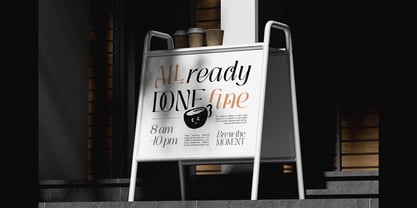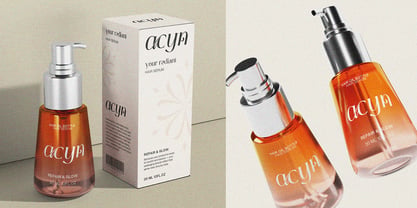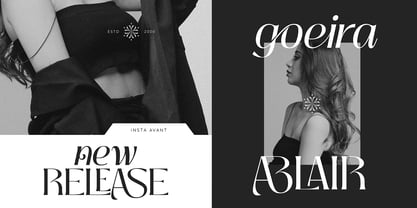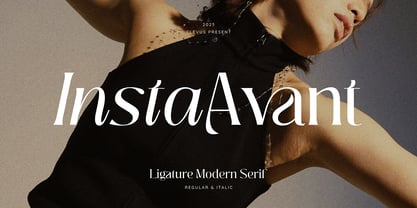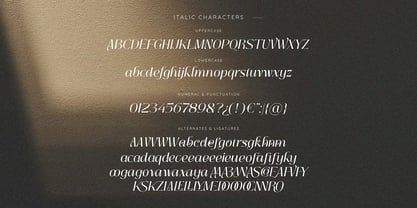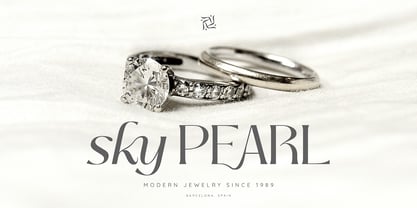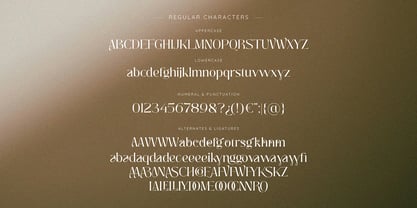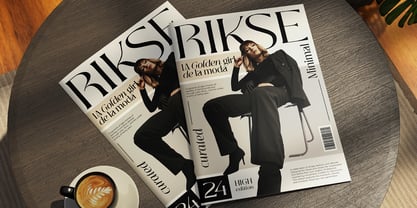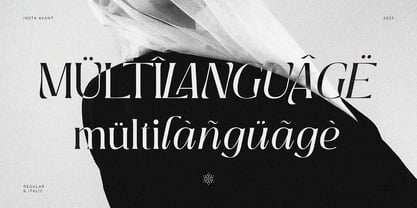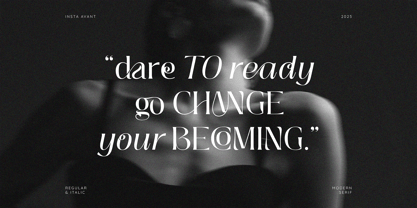
Insta Avant
by Clevus
The Insta Avant Font Family was designed by Alfinu Zafir and published by Clevus. Insta Avant contains 2 styles and family package options. More about this family
Proudly present Insta Avant Typeface, created by ClevUs, A Ligature modern serif; calligraphic italic that has own unique style modern look. This typeface is perfect for an elegant luxury logo, book or movie title design, fashion brand, magazine, clothes, lettering, quotes, and so much more.
Designers: Alfinu Zafir
Foundry: Clevus